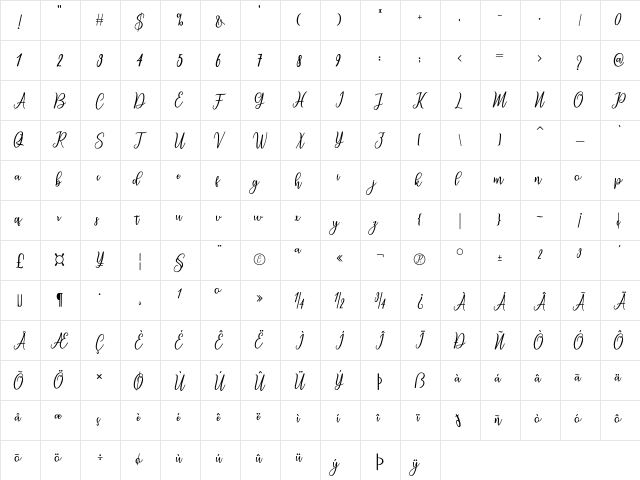
mallona Regular
| Designer | Syahputra/Bexxtype |
mallona is a composed and adaptable typeface that performs quietly and consistently across a wide range of design contexts.